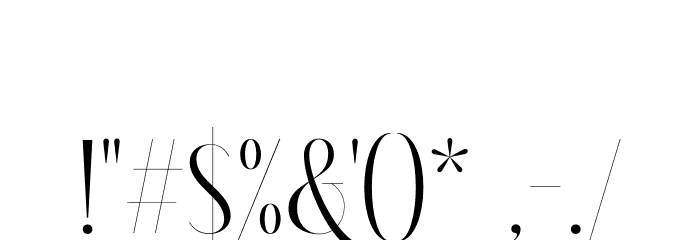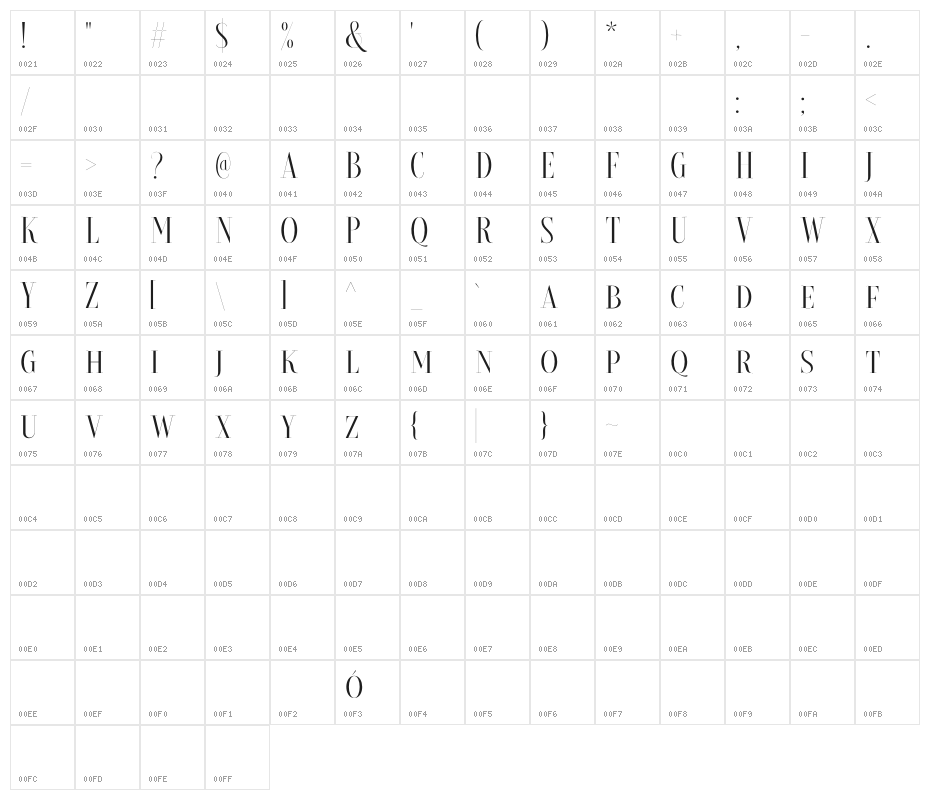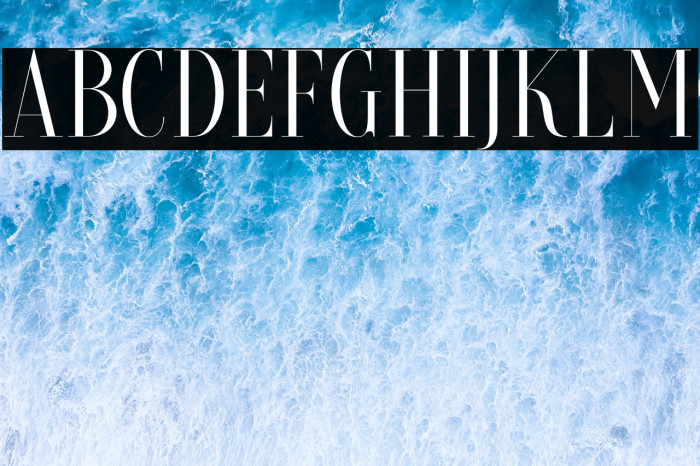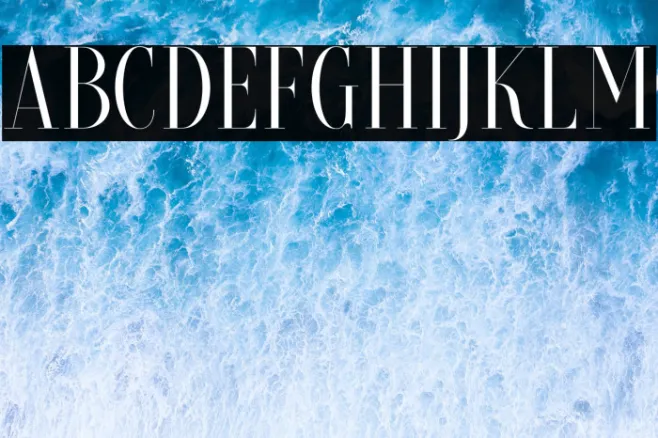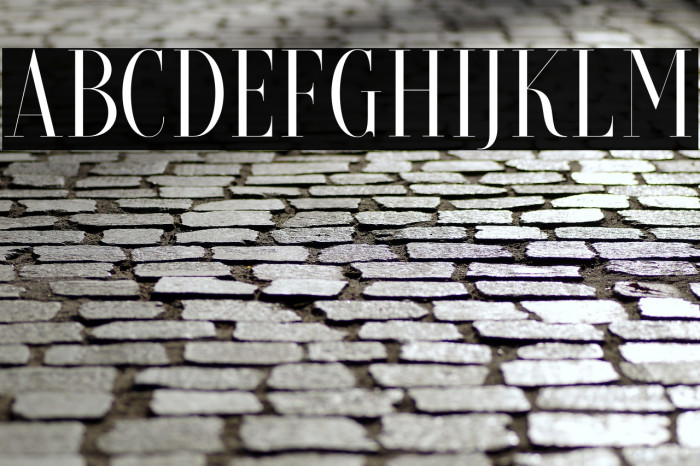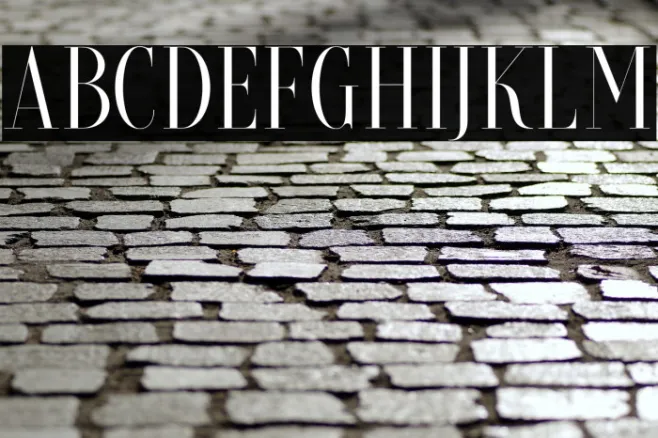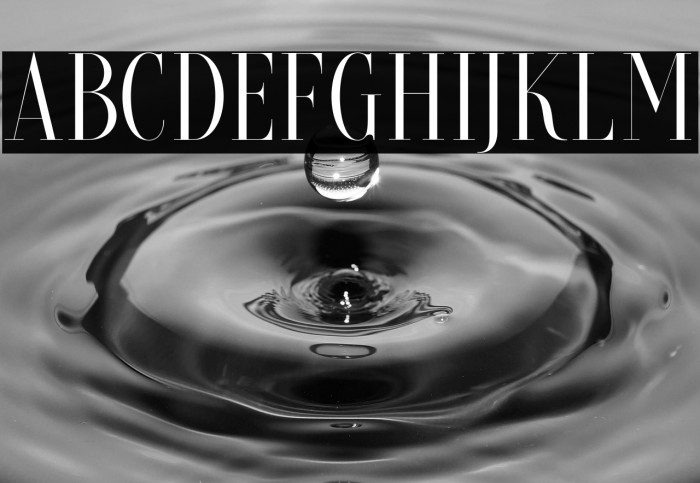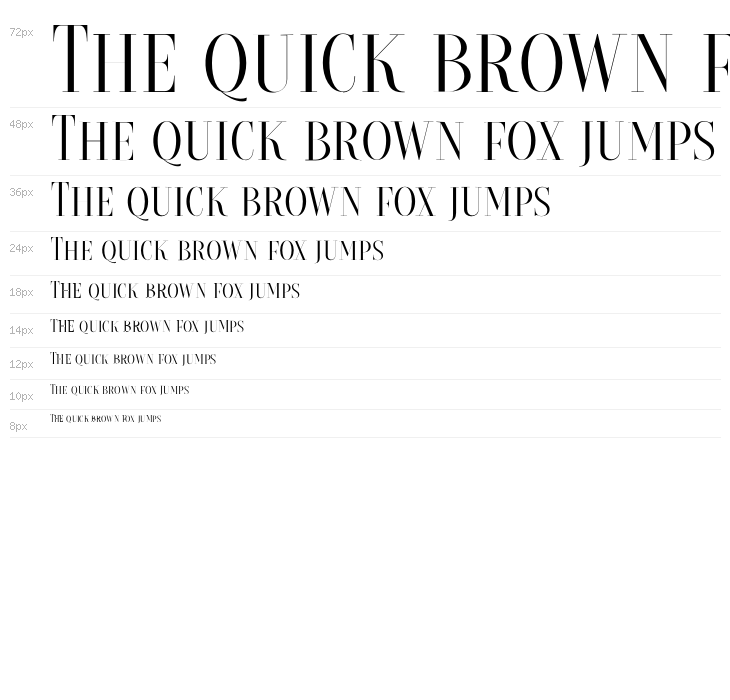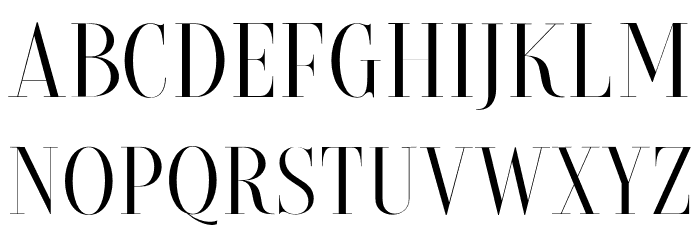
BriocheDEMO Font
BriocheDEMO Description
This font exhibits a refined and elegant style characterized by its high contrast between thick and thin strokes. The serifs are sharp and pronounced, adding a touch of sophistication. The uppercase letters are tall and commanding, while the lowercase letters maintain a consistent flow with slightly rounded edges. The numerals are aligned with the uppercase letters, providing a cohesive look. Special characters are designed with the same attention to detail, ensuring versatility across various applications. The overall design is both modern and timeless, making it suitable for a wide range of creative projects.
| Use Case | Headlines, Logos, Editorial design |
| Proposed Projects | Ideal for luxury branding, editorial design, wedding invitations, and high-end product packaging. |